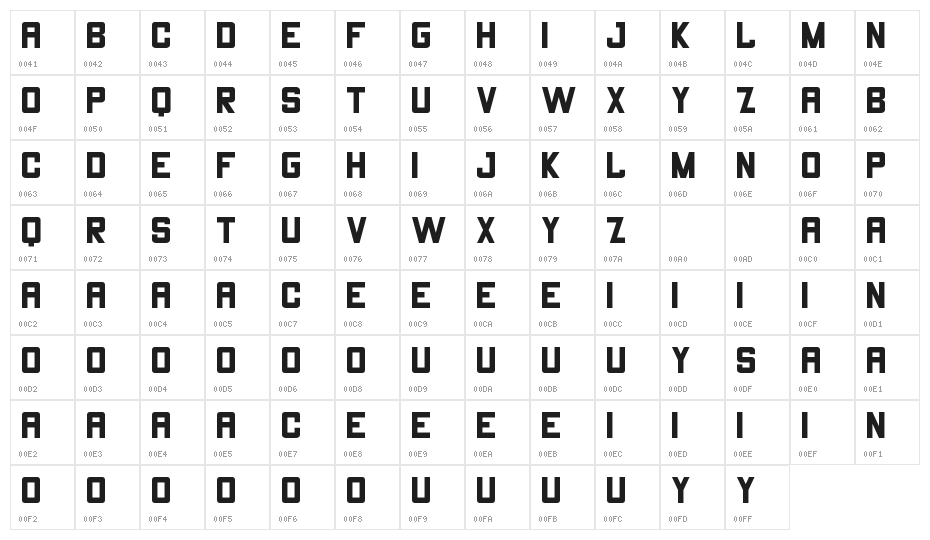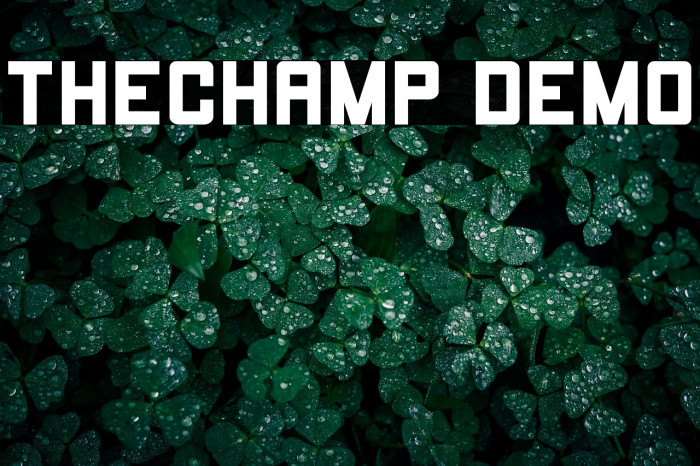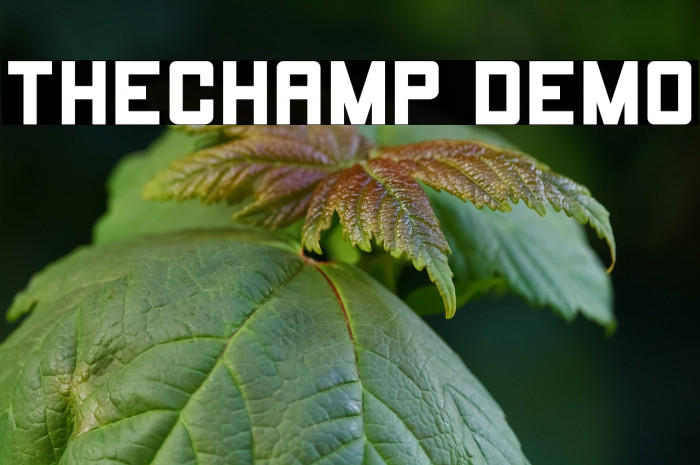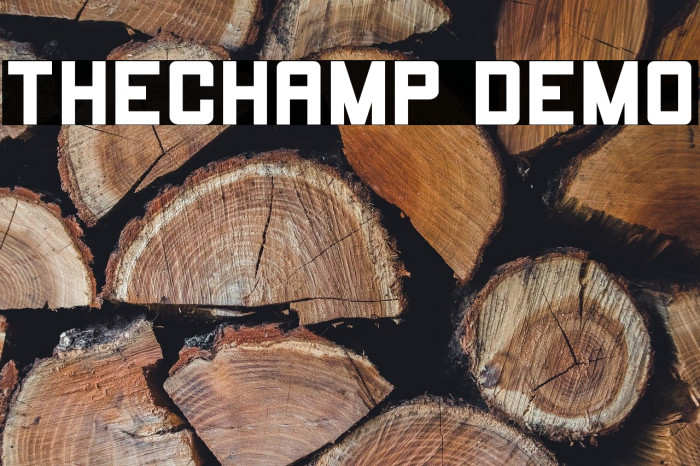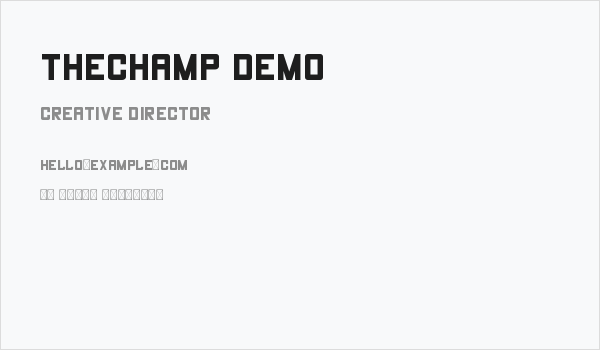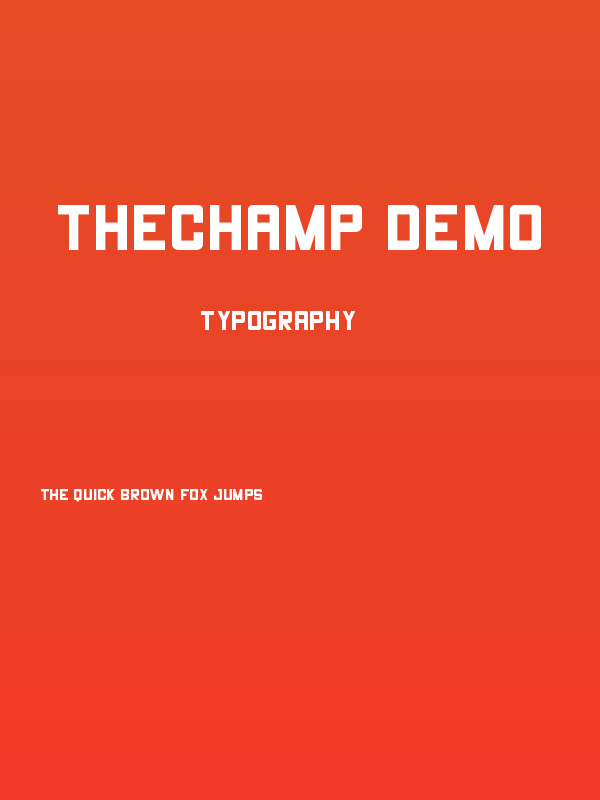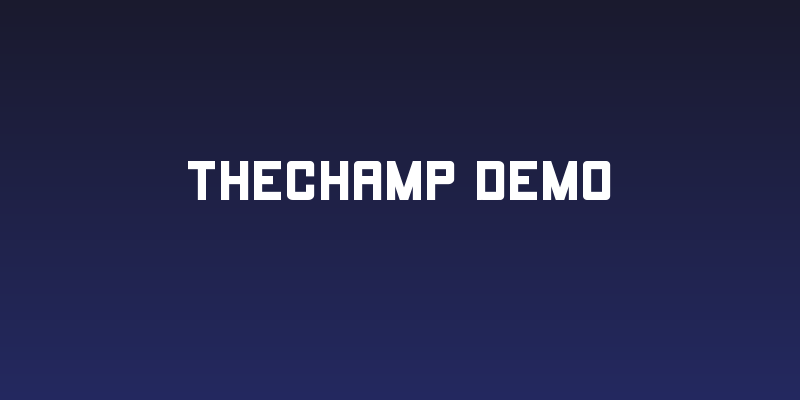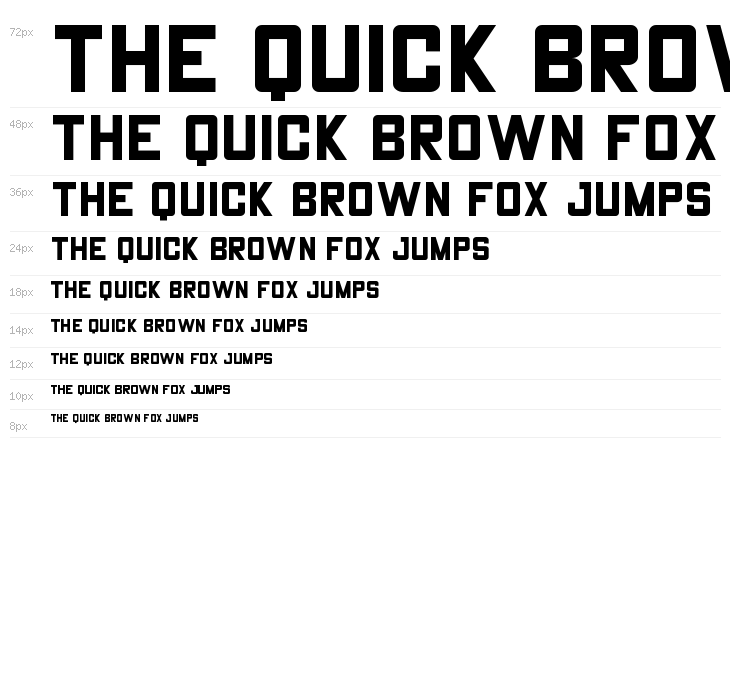
THECHAMP DEMO Font
THECHAMP DEMO Description
This font features a bold and robust design with strong geometric shapes and a modern aesthetic. The characters are uniform in width, creating a cohesive and structured appearance. The uppercase letters are particularly striking, with clean lines and sharp angles that convey a sense of strength and confidence. The overall style is reminiscent of industrial or sports-themed designs, making it suitable for projects that require a bold and impactful visual presence. The font maintains a consistent weight throughout, ensuring readability and clarity even at smaller sizes.
| Proposed Projects | Ideal for sports branding, posters, headlines, and logos that require a strong visual impact. |